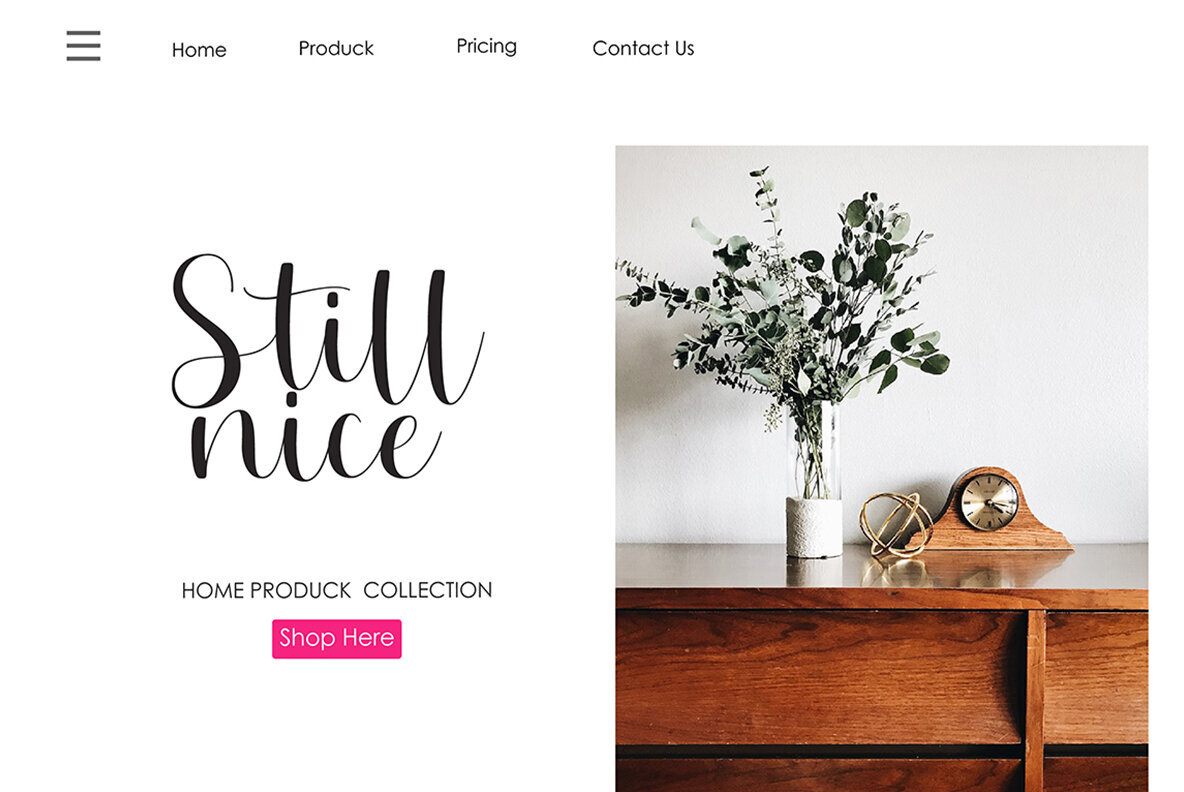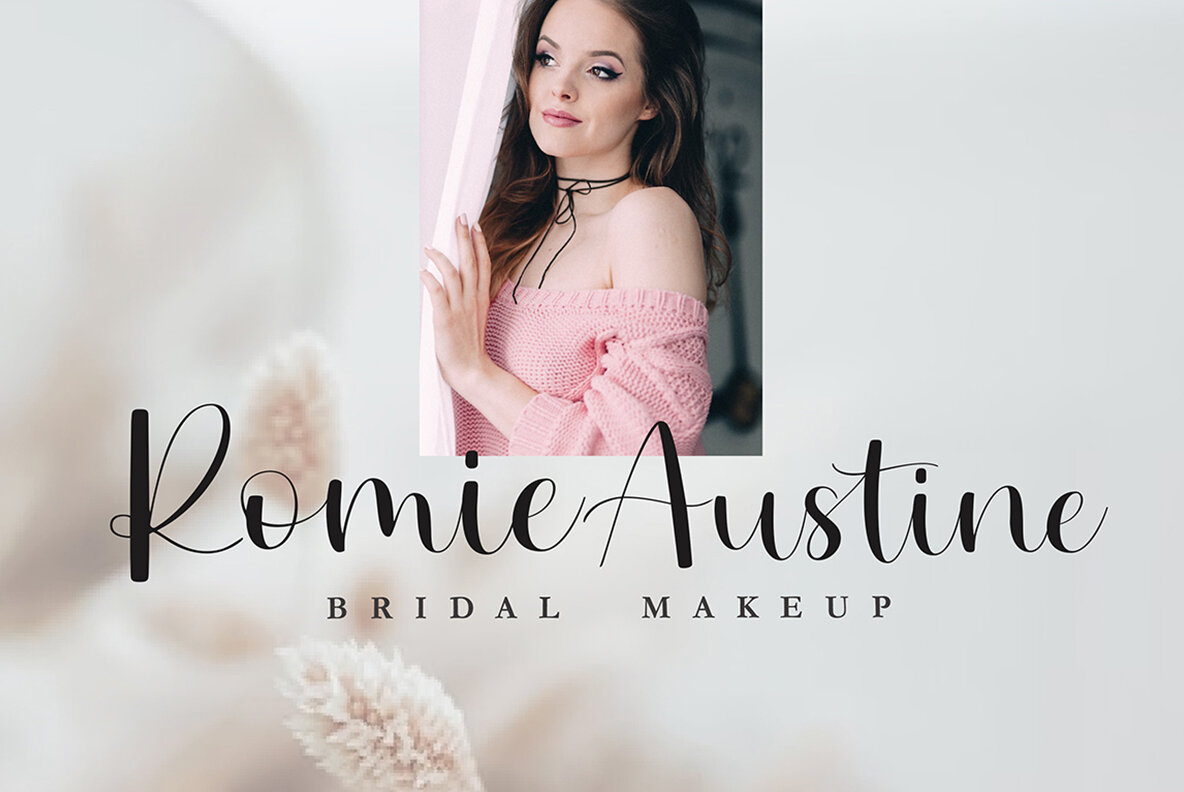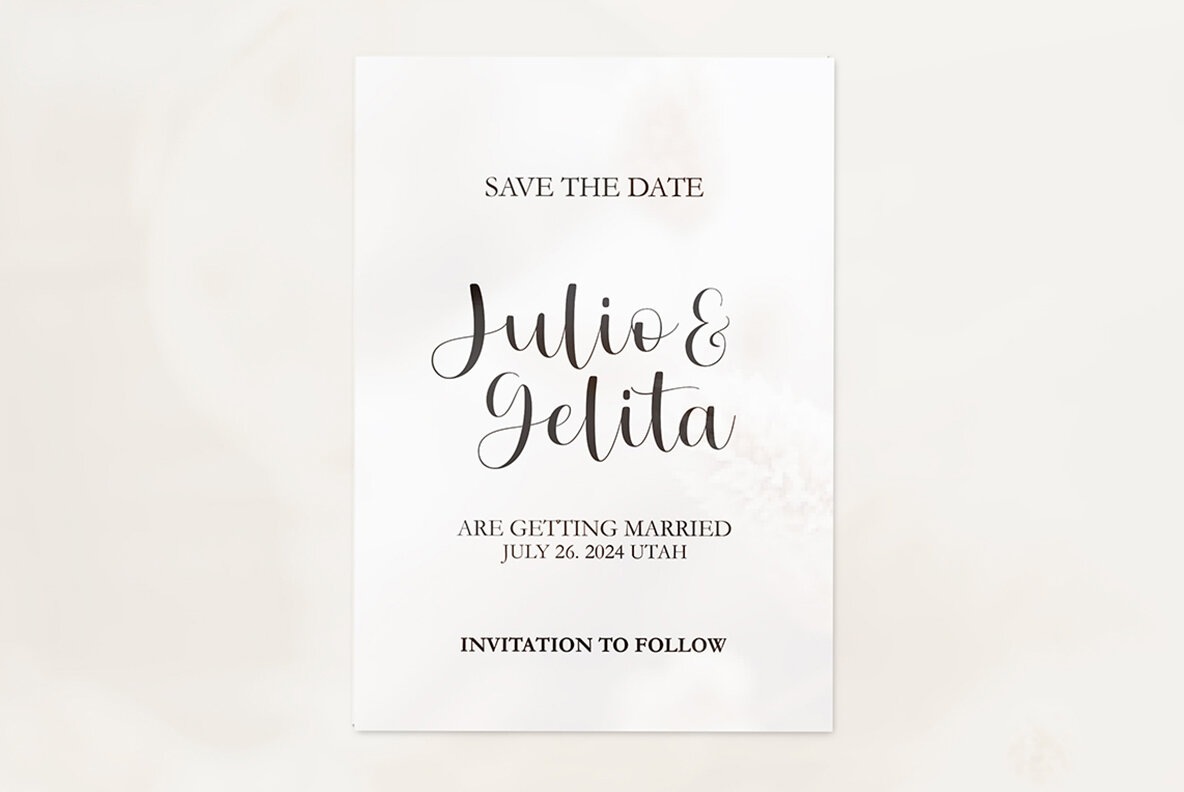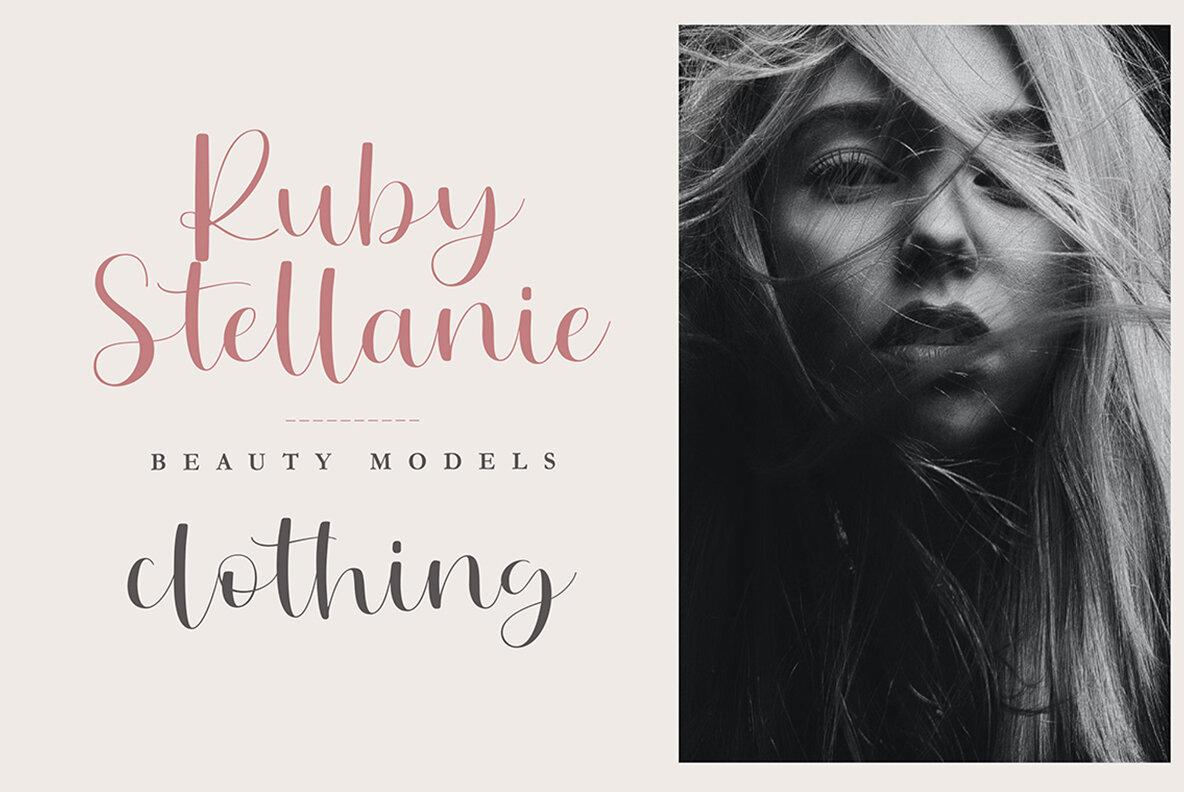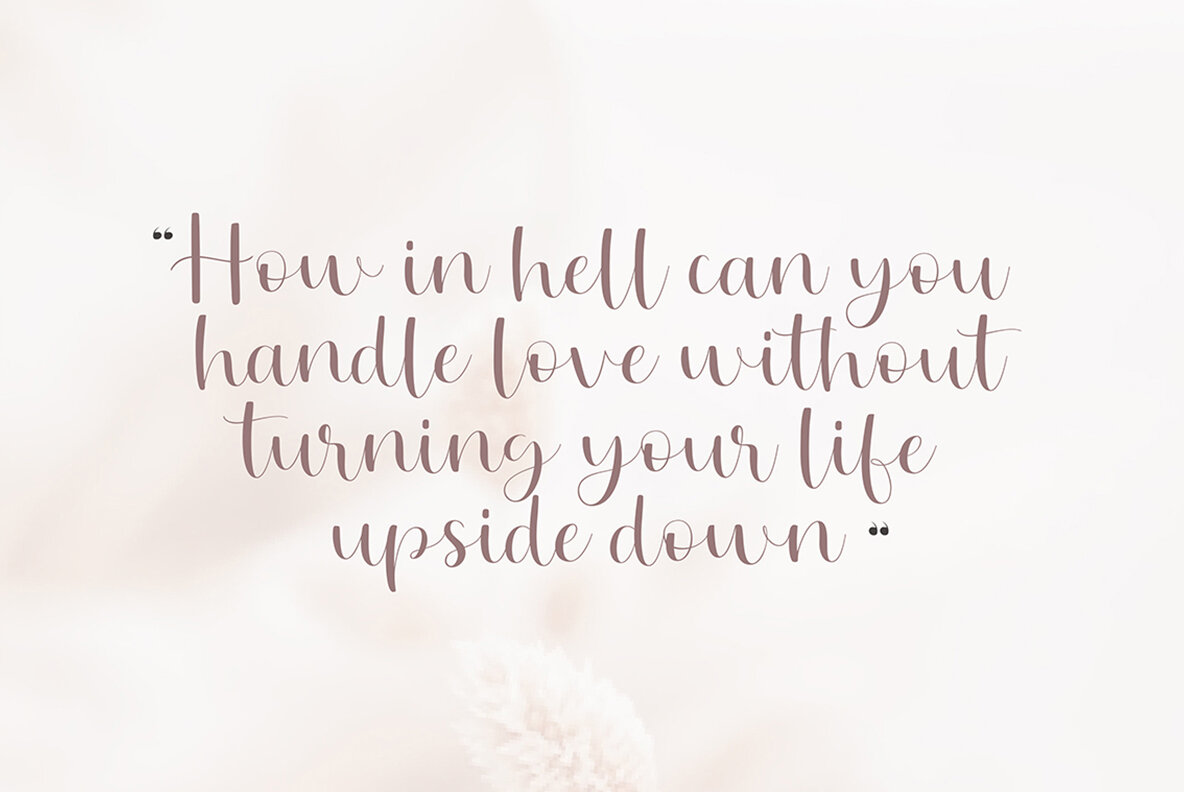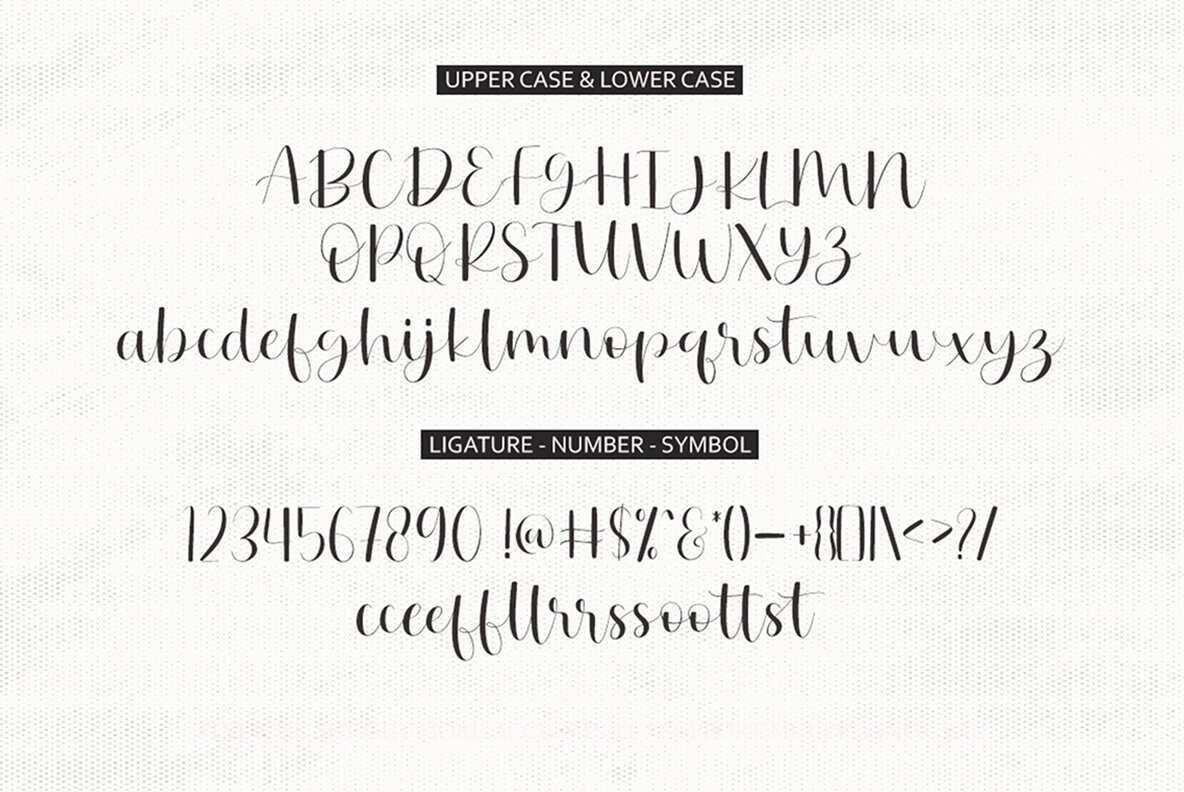
Julieto Font
Julieto Regular
Julieto captures the essence of modern calligraphy, offering a script style that is both graceful and approachable. Its casual charm makes it remarkably versatile, creating an inviting and accessible aesthetic suitable for a wide range of designs. Whether on a romantic setting or a lively backdrop, Julieto stands out, rendering beautifully as a title or integrated into larger compositions. The script's down-to-earth nature and readability make it a splendid choice for a variety of creative projects, especially those imbued with romance and style.Julieto: A Modern Script with Casual Elegance